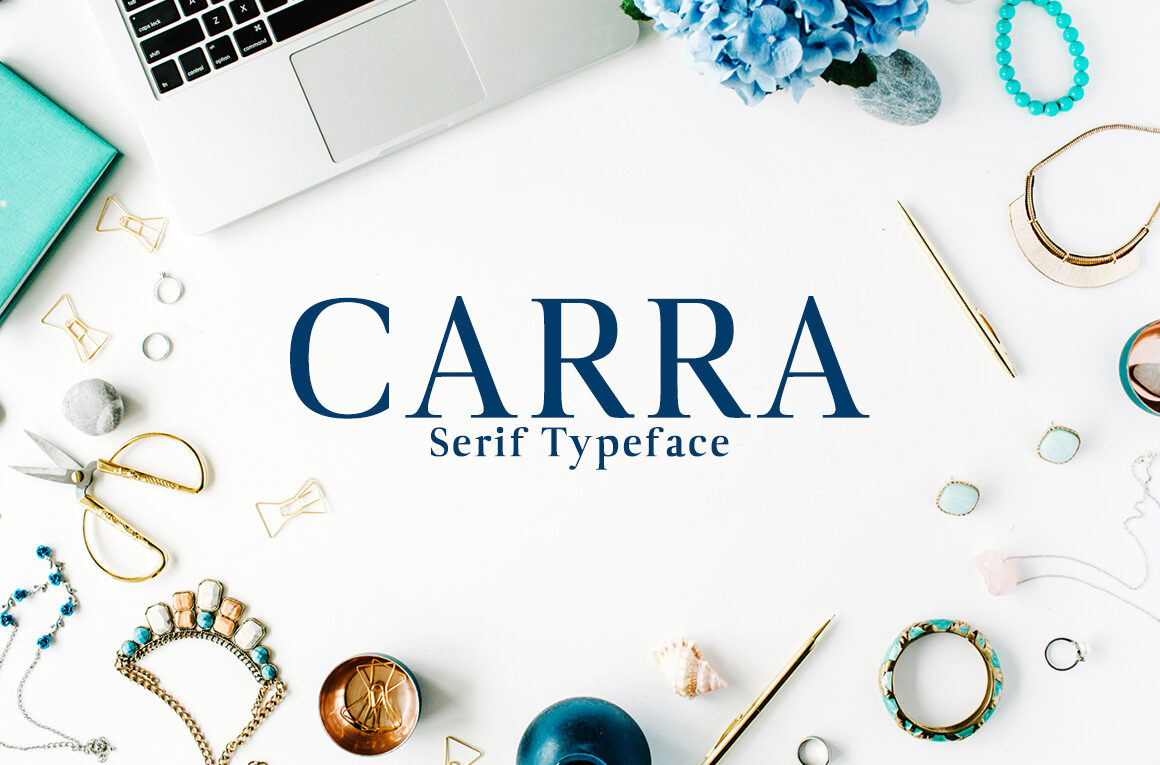
Introducing Carra Font: Elevate Your Designs with a Touch of Sophistication
In the world of typography, a font can make or break a design. It’s the foundation upon which the entire visual identity is built. For designers and crafters seeking to add a dash of elegance and modernity to their projects, look no further than Carra Font. This posh serif typeface is meticulously crafted to bring a unique and refined aesthetic to a wide array of designs.
The Essence of Carra Font
Carra is not just another serif typeface; it’s a masterpiece of minimalism and cleanliness. Its creation is a testament to the power of simplicity in design. With clean lines and subtle curves, Carra exudes a sense of sophistication and luxury. This font is perfect for designers who aim to create a lasting impression with their work.
Why Choose Carra Font?
- Versatility: One of the standout features of Carra Font is its incredible versatility. Whether you’re working on a branding project, a website, a print advertisement, or any other design endeavor, Carra fits seamlessly into any context. Its adaptability makes it an invaluable asset for any designer looking to expand their typographic arsenal.
- Modern Look and Feel: In today’s fast-paced digital landscape, standing out is more crucial than ever. Carra Font helps you achieve just that. Its modern aesthetic, coupled with a classic serif structure, provides the perfect balance between contemporary flair and timeless elegance.
- Legibility: A font’s readability is paramount, especially in digital formats. Carra excels in this area, ensuring that your message is conveyed clearly and effectively, regardless of the medium. This makes it an excellent choice for body text, headings, and anywhere you want to make a strong visual impact.
Applications of Carra Font
The applications of Carra Font are as diverse as the designers who use it. Here are a few ideas to get you started:
- Branding and Logotypes: Use Carra to create a memorable brand identity that speaks to sophistication and quality.
- Web Design: Elevate your website’s typography with Carra, making it not only visually appealing but also highly readable.
- Print Materials: From business cards to brochures, Carra adds a touch of class to any print project.
- Packaging: Stand out on store shelves with Carra’s distinctive and elegant look.
Carra Font is more than just a typeface; it’s a design statement. Its blend of minimalism, elegance, and versatility makes it an indispensable tool for designers and crafters aiming to create impactful and beautiful designs. Whether you’re looking to add a sophisticated touch to your branding, website, or print materials, Carra is the perfect choice. Embrace the world of Carra Font today and discover a new dimension of typographic excellence.